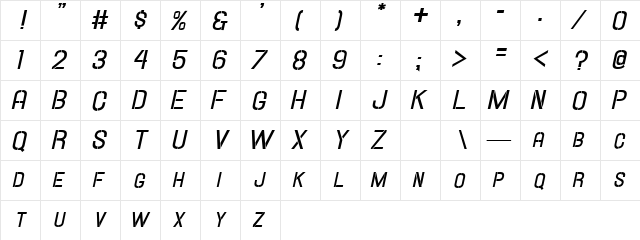
Hallandale Stencil Bd.It. SC JL Regular
Design Context for Hallandale Stencil Bd.It. SC JL Typeface
Hallandale Stencil Bd.It. SC JL borrows the utilitarian aesthetic of stencil lettering, with its characteristic cutaways and no-frills construction lending an industrial edge. The heavy weight commands attention and anchors typographic hierarchies.
A strong choice for packaging that needs edge, warehouse aesthetics, and rough-and-ready visual identities.
Pro Tip: Use Hallandale Stencil Bd.It. SC JL at large sizes on packaging, posters, or apparel where the stencil cutaways read clearly. Avoid small sizes where those gaps become visual noise.